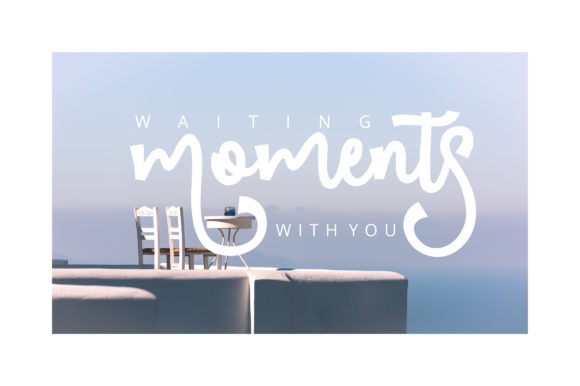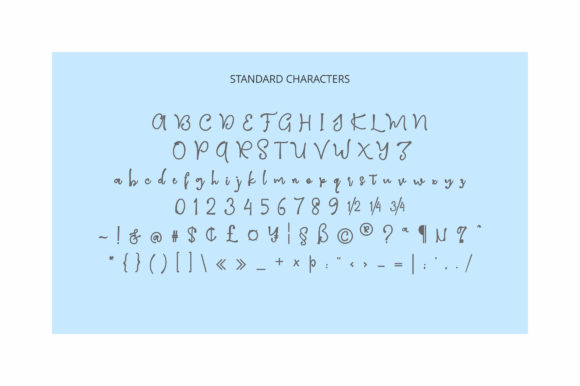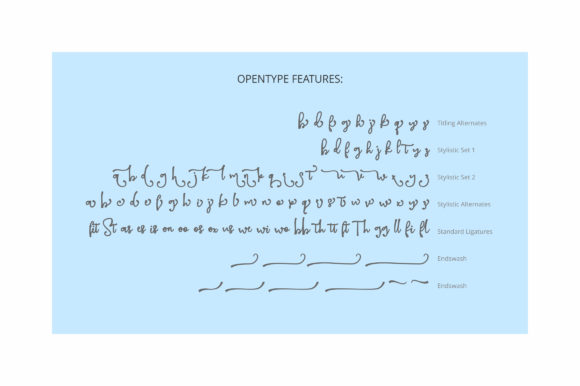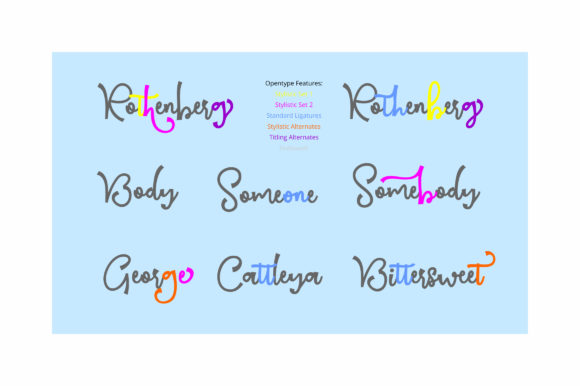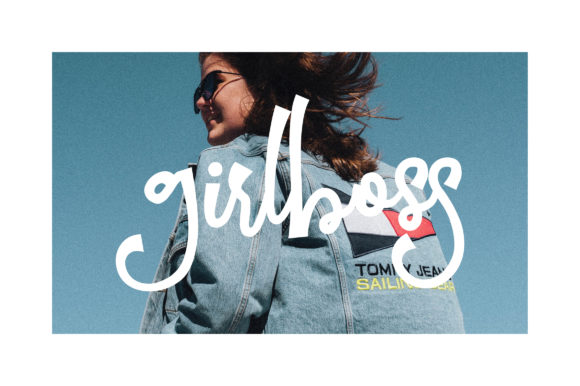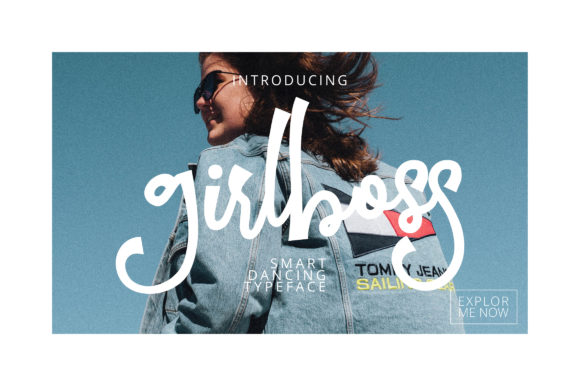
Unleash Your Inner Boss: Discover the Girlboss Font Phenomenon
Are you ready to take your design projects to the next level? Look no further than the Girlboss Font, a stunning display font that’s making waves in the design community. With its strong, unique charm, this font is sure to inspire you to create something truly remarkable. In this article, we’ll dive into the world of Girlboss Font, exploring its features, benefits, and uses, as well as provide tips and tricks for incorporating it into your designs.
Get to Know Girlboss Font
Get bossy with Girlboss Font, a lovely and strong display font that’s perfect for making a statement. Its undeniably unique charm is sure to turn any design project into a standout. Whether you’re a seasoned designer or a crafty DIY enthusiast, this font is sure to inspire you to create something amazing. With its bold, confident feel, Girlboss Font is ideal for projects that require a little extra oomph.
What Makes Girlboss Font So Special?
So, what sets Girlboss Font apart from other fonts on the market? Here are just a few features that make it a standout:
• Unique Charm: Girlboss Font has an unmistakable charm that’s sure to capture attention. Its distinctive style is perfect for creating eye-catching designs that demand to be noticed.
• Strong and Bold: This font exudes confidence and strength, making it perfect for projects that require a bold statement.
• Versatile: Girlboss Font is incredibly versatile, making it suitable for a wide range of design projects, from logos and branding to posters and social media graphics.
How to Use Girlboss Font in Your Designs
Now that we’ve explored the features and benefits of Girlboss Font, let’s talk about how to incorporate it into your designs. Here are a few tips and tricks to get you started:
• Pair it with Neutrals: Girlboss Font pairs perfectly with neutral colors like black, white, and gray. Try combining it with a bold background or contrasting color to really make it pop.
• Experiment with Sizes: Don’t be afraid to experiment with different font sizes to create visual interest. Girlboss Font looks great in large, bold displays, but it can also be used in smaller sizes for added texture and depth.
• Add Texture and Patterns: Consider adding texture or patterns to your design to give it an extra layer of depth and visual interest. Girlboss Font looks great with bold graphics, illustrations, and abstract patterns.
Design Project Ideas Featuring Girlboss Font
Ready to put Girlboss Font to the test? Here are a few design project ideas to get you started:
• Logo Design: Create a bold, eye-catching logo for a new business or brand using Girlboss Font.
• Social Media Graphics: Use Girlboss Font to create stunning social media graphics that demand attention.
• Posters and Flyers: Create bold, eye-catching posters and flyers using Girlboss Font and striking imagery.
• Branding and Packaging: Use Girlboss Font to create a cohesive brand identity, including business cards, letterheads, and packaging materials.
Font Name Girlboss Font
Author BONJOURTYPE
In conclusion, Girlboss Font is a game-changing display font that’s sure to inspire you to create something amazing. With its strong, unique charm and versatile design, it’s perfect for a wide range of design projects. Whether you’re a seasoned designer or a crafty DIY enthusiast, Girlboss Font is sure to help you take your designs to the next level. So why wait? Get bossy and start creating with Girlboss Font today!
• Is Girlboss Font suitable for body text? While Girlboss Font is primarily designed for display use, it can be used for body text in smaller sizes. However, it’s recommended to use a clear, legible font for extended reading.